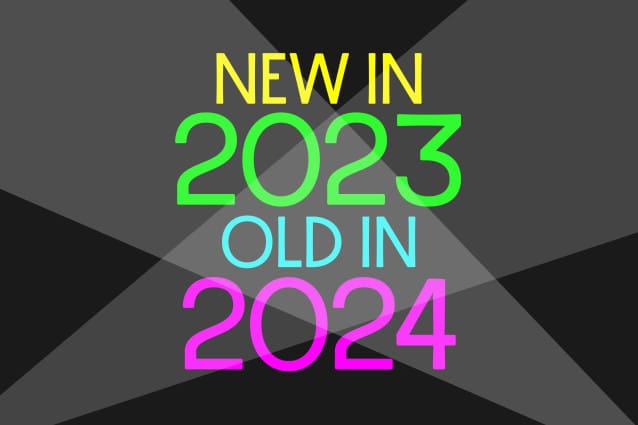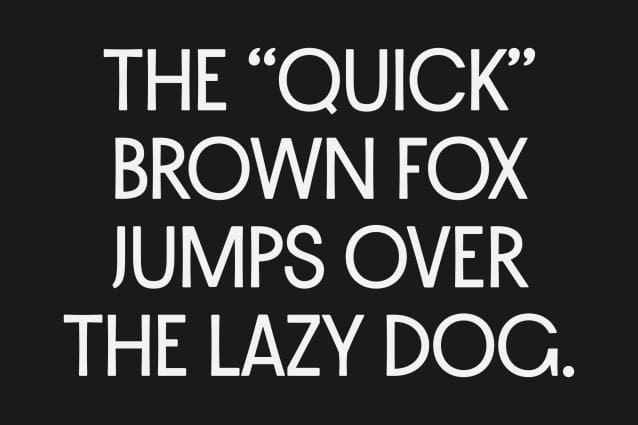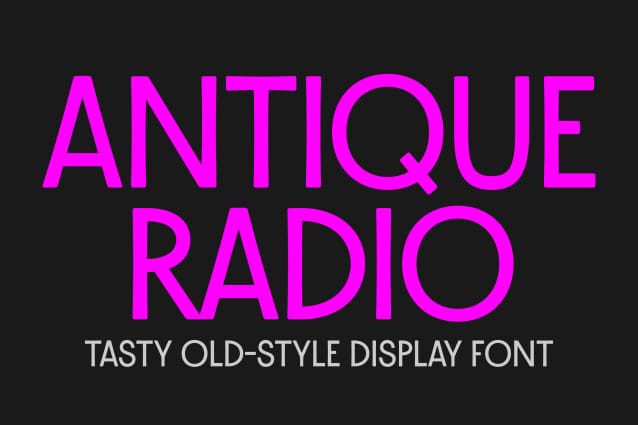
ST Antique Radio Font
ST Antique Radio Font, is and old-style all-caps display font. It’s perfect for logos, branding, book covers, posters and such.This font is a demo version with a limited character set for personal use. Full version for both commercial and personal use will be published shortly, and I will update this description accordingly.